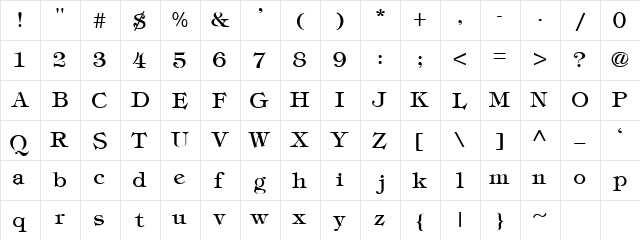
NewTiffany Normal
Design Context for NewTiffany
NewTiffany is a composed and adaptable typeface that performs quietly and consistently across a wide range of design contexts.